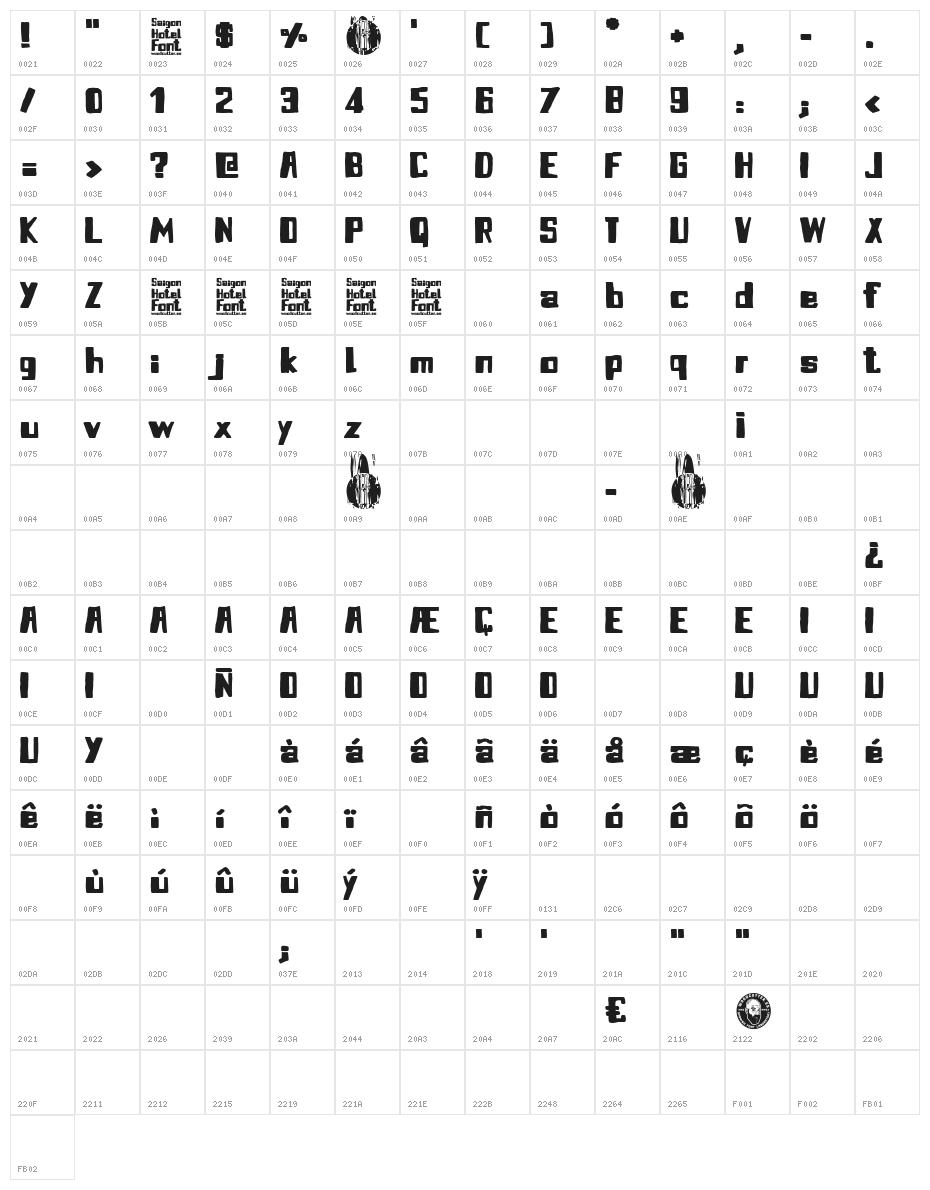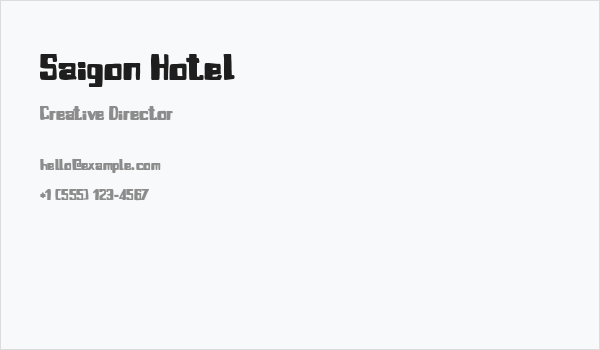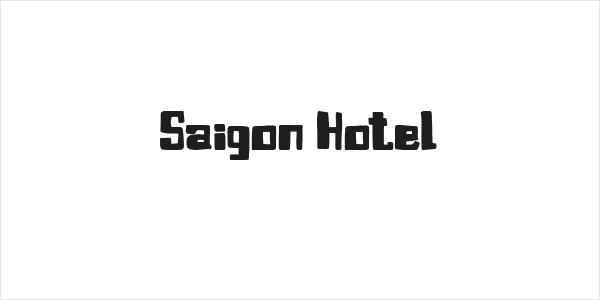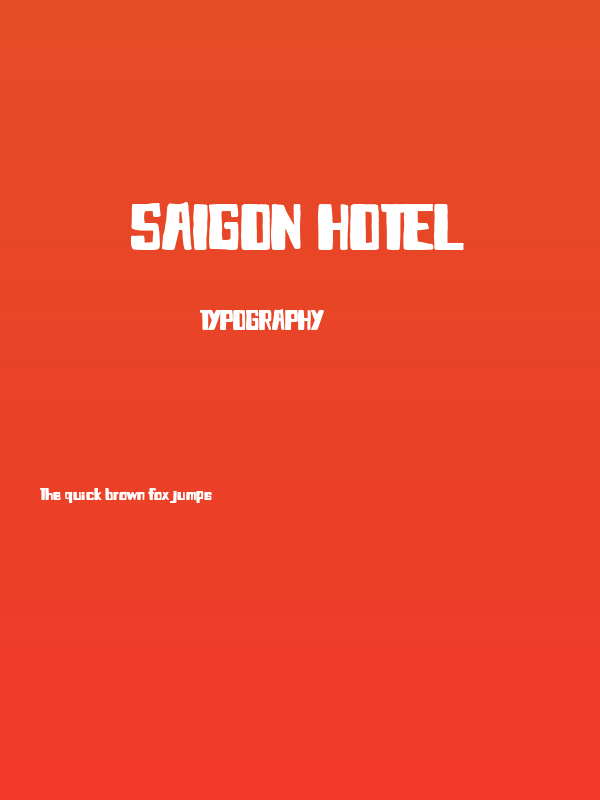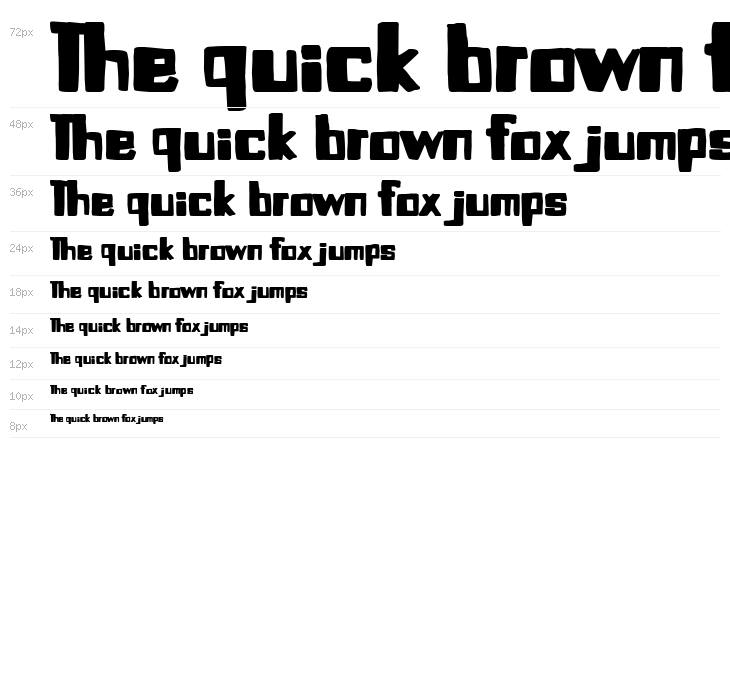
Saigon Hotel Font
Saigon Hotel Description
This font features a bold and rugged design, characterized by its thick, uneven strokes and a hand-drawn appearance. The uppercase and lowercase letters maintain a consistent weight, giving the font a cohesive look. The characters have a slightly irregular shape, adding to its handcrafted feel, while the numbers and special characters follow the same stylistic approach. This font exudes a vintage and rustic charm, making it ideal for projects that require a touch of personality and authenticity.
| Proposed Projects | Ideal for posters, signage, branding, and any project needing a handcrafted, vintage aesthetic. |